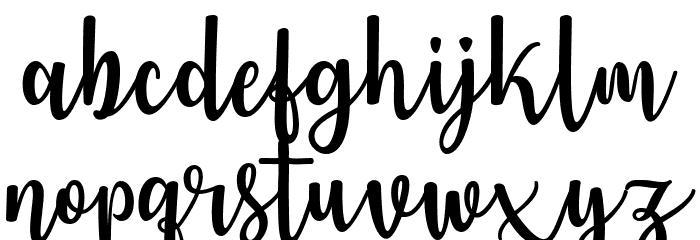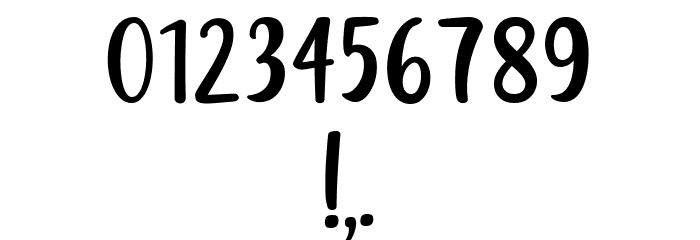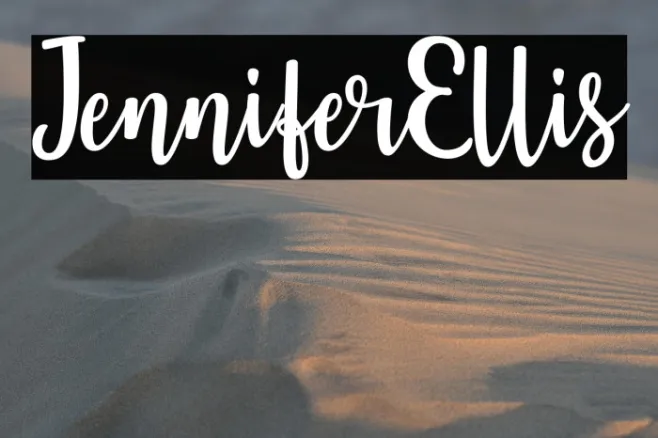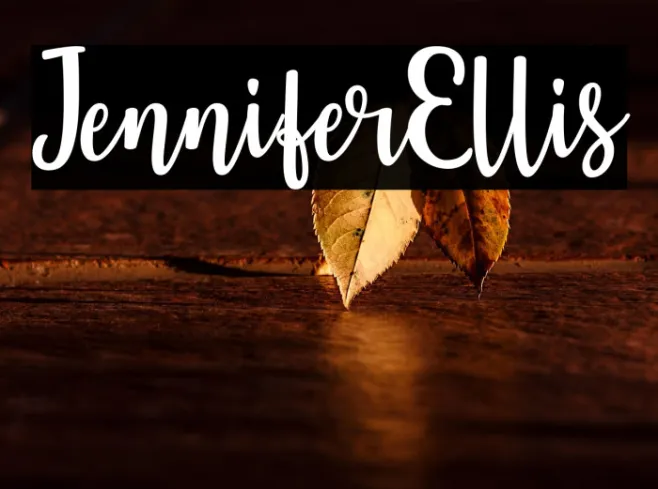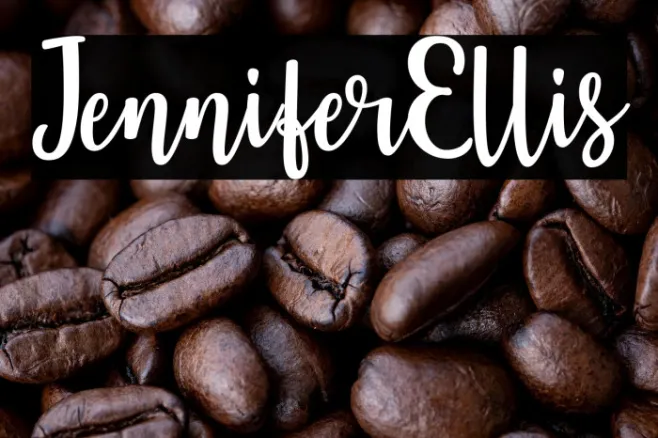
JenniferEllis Font
This font features a lively and expressive handwritten style, characterized by its bold and flowing strokes. The uppercase letters are tall and slightly condensed, with playful loops and curves that add a whimsical touch. The lowercase letters maintain a consistent flow, with some characters extending below the baseline, enhancing the font's dynamic appearance. The numbers are equally bold and maintain the same playful style, making them stand out. Special characters like the exclamation mark and question mark are designed with the same energetic flair, ensuring consistency throughout the font. Overall, this font exudes a sense of fun and creativity, making it ideal for projects that require a personal and engaging touch.
A bold, playful handwritten font with flowing strokes and whimsical curves.
- Proposed Projects: Ideal for greeting cards, invitations, playful branding, and social media graphics.
- Use Case: Logos, Headlines, Invitations